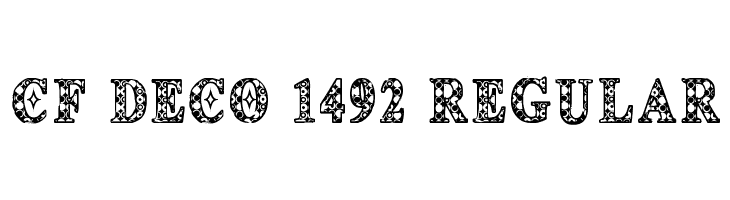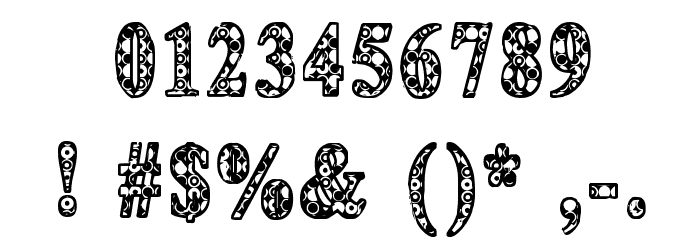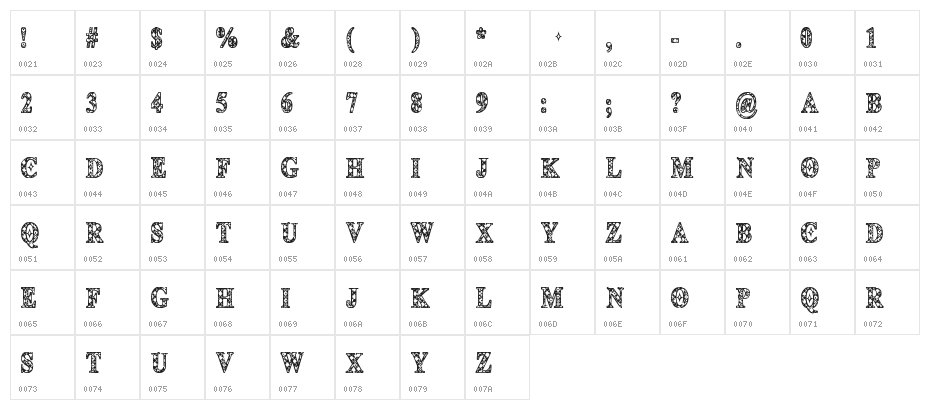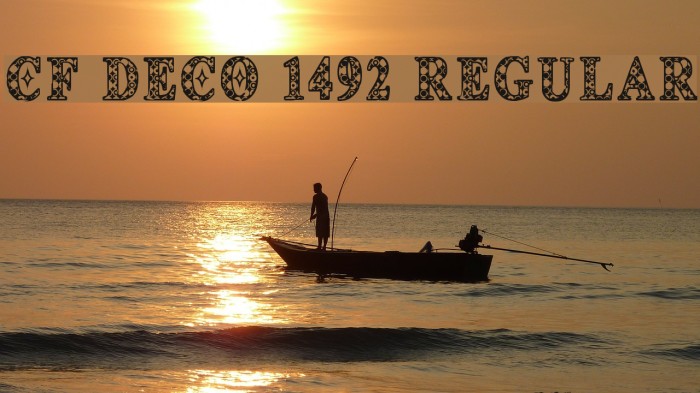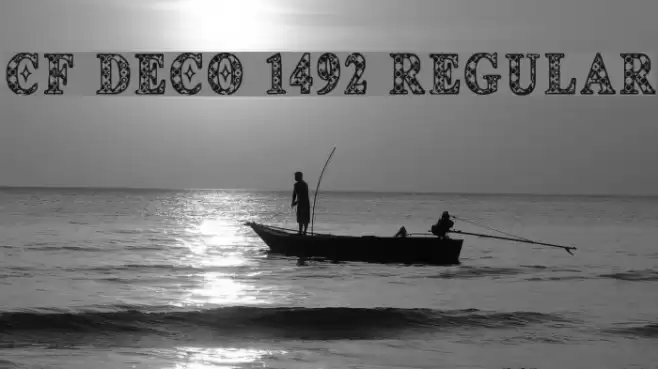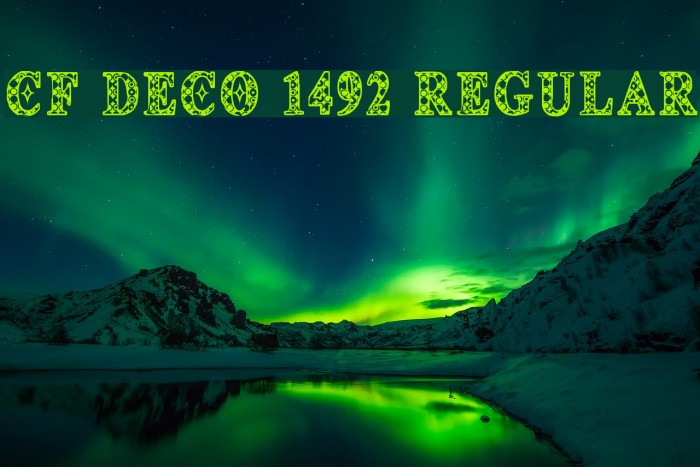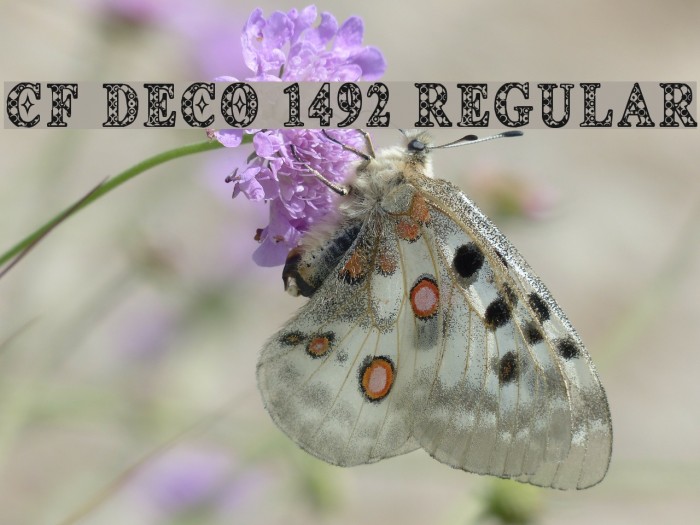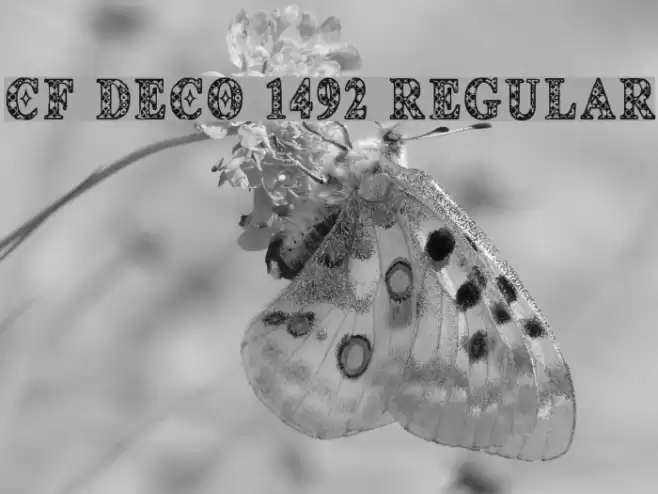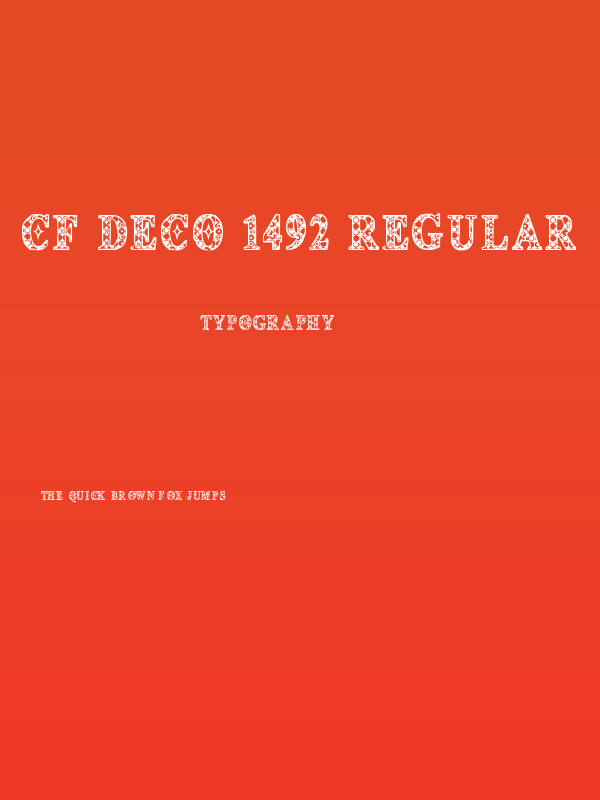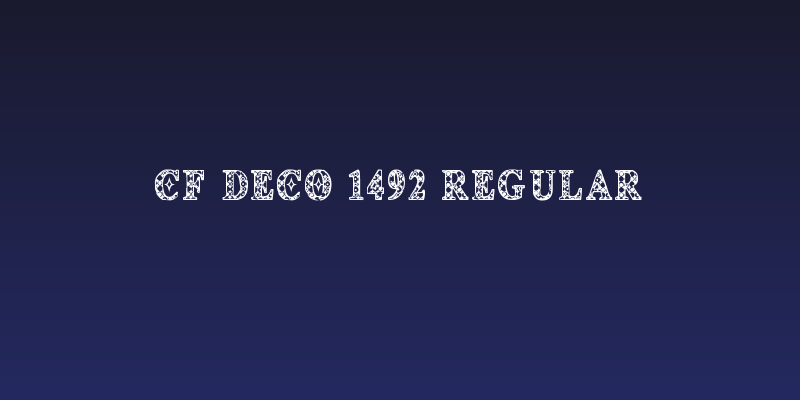
CF Deco 1492 Regular Font
CF Deco 1492 Regular Description
This font features an intricate and decorative design, characterized by its ornate patterns within each letterform. The uppercase and lowercase letters, as well as numbers and special characters, are adorned with detailed embellishments that give the font a unique and artistic appearance. The style is reminiscent of vintage or classical decorative motifs, making it stand out with its bold and eye-catching design. The font maintains a consistent structure across all characters, ensuring readability while still offering a distinct visual flair.
| Overall Style | Vintage, Decorative |
| Use Case | Headlines, Logos, Decorative text |
| Proposed Projects | Ideal for vintage-themed posters, artistic invitations, decorative signage, and branding that requires a touch of elegance and uniqueness. |